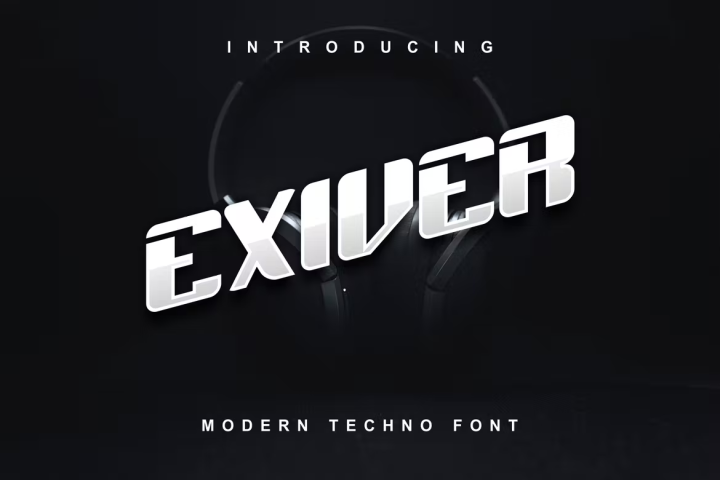
Exiver Font
Introducing our new product Exiver Font – Modern Font
Exiver Font – Modern Font is a bold and authentic display font. The font is suitable for any branding project like logo, t-shirt printing, esport, and many more. outstanding in a wide range of contexts.